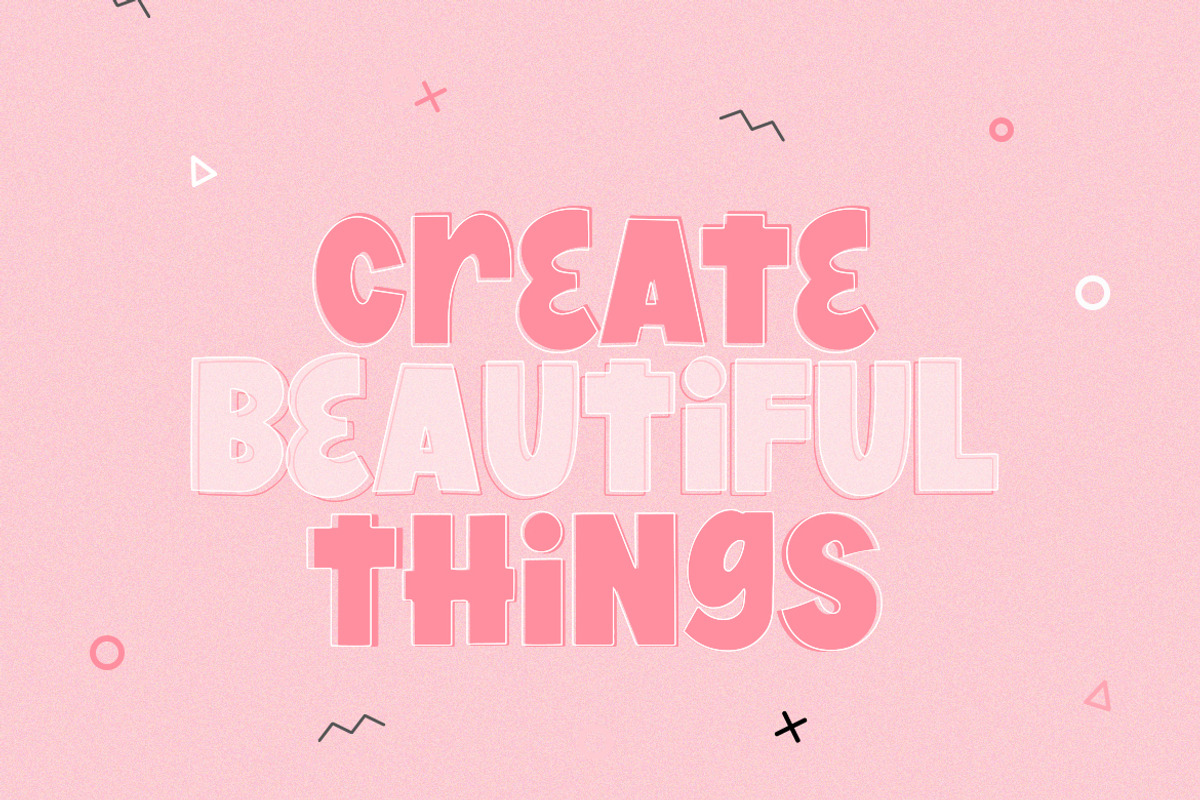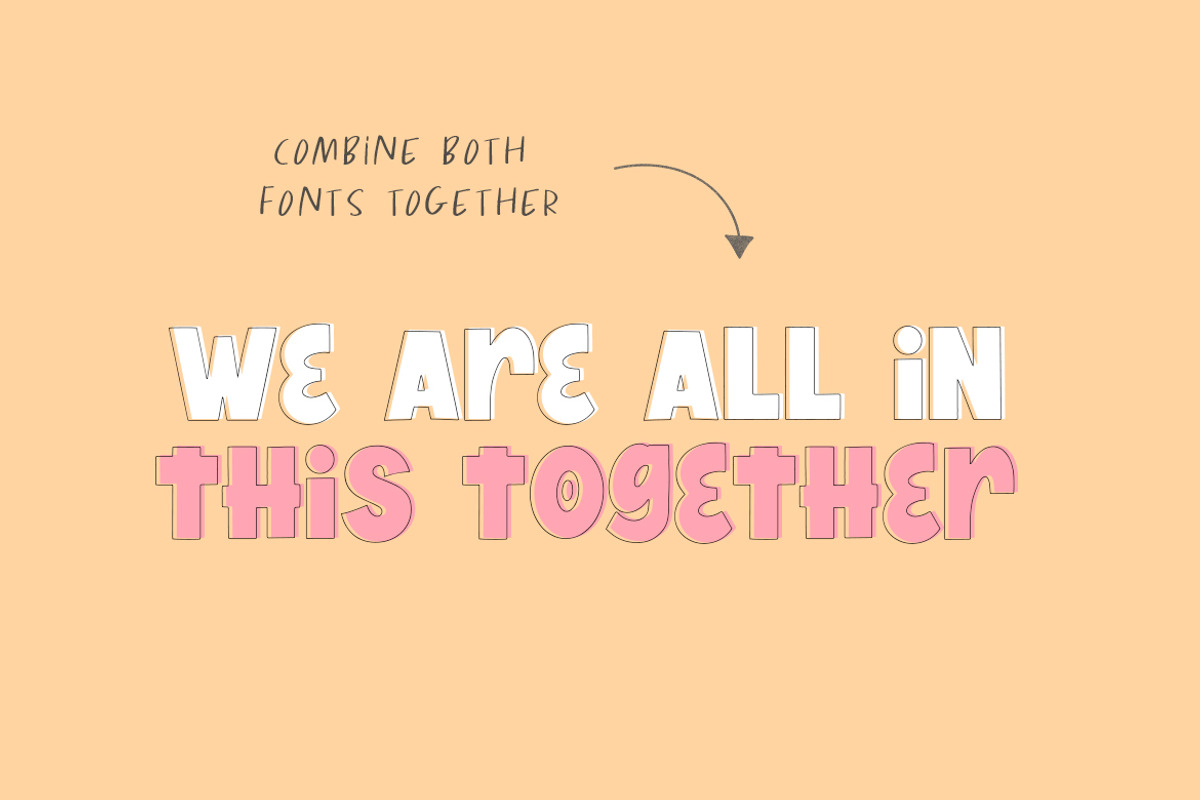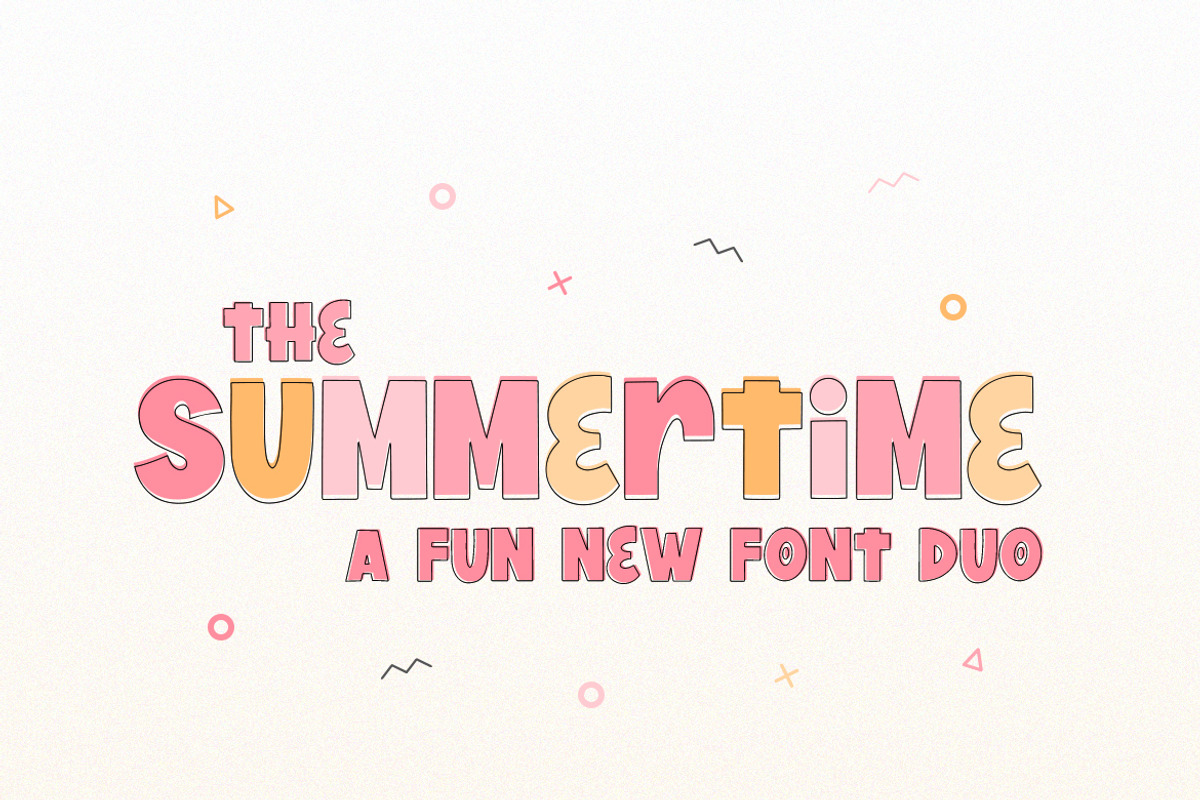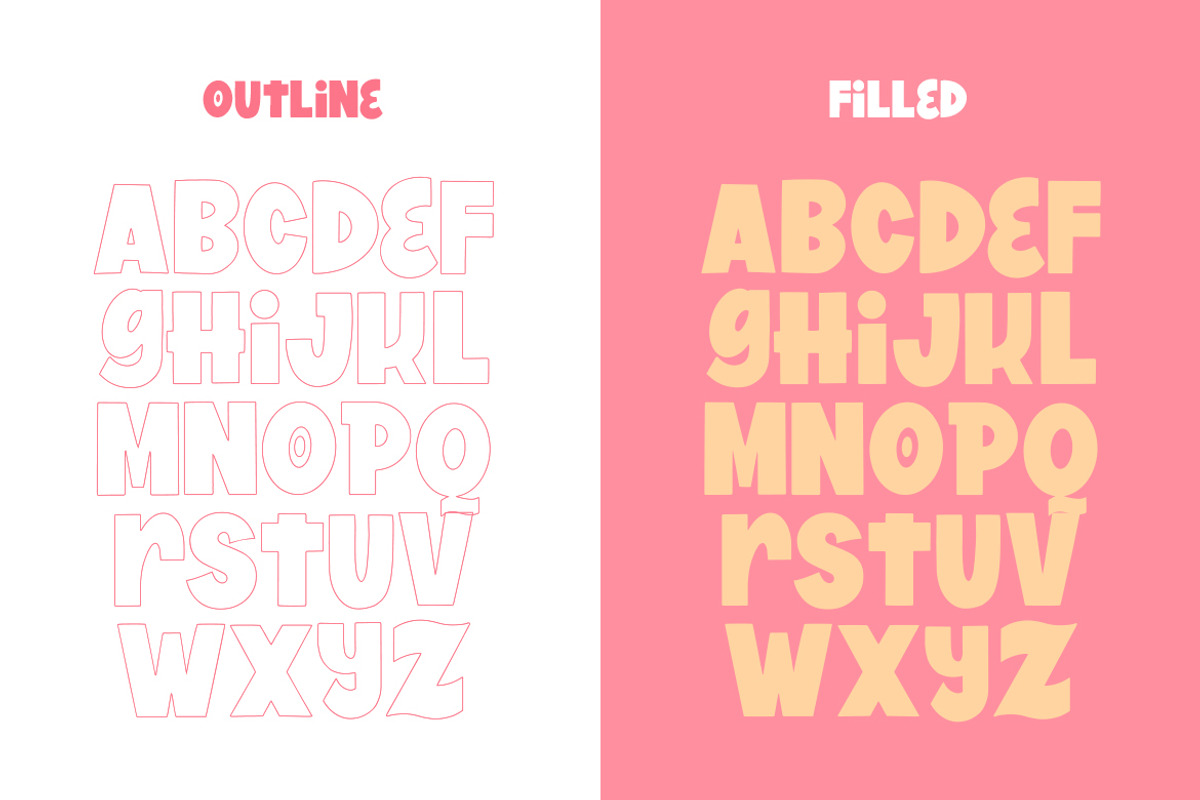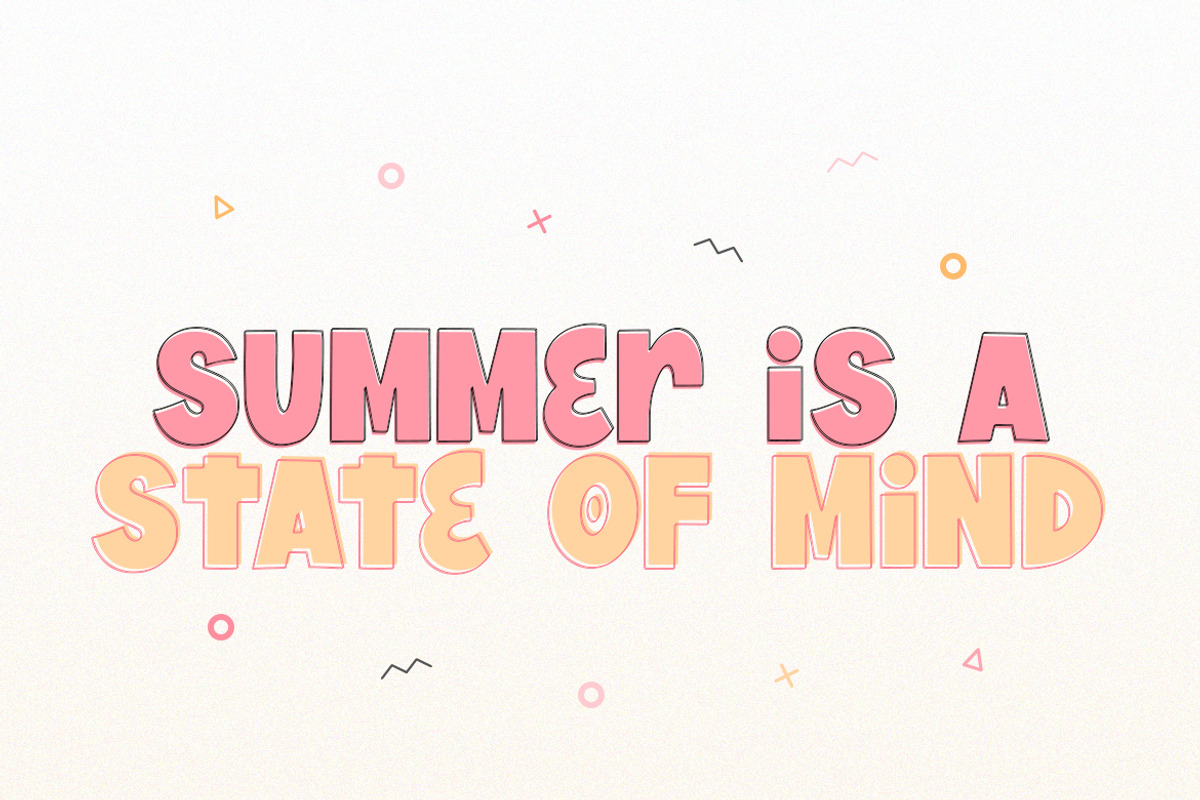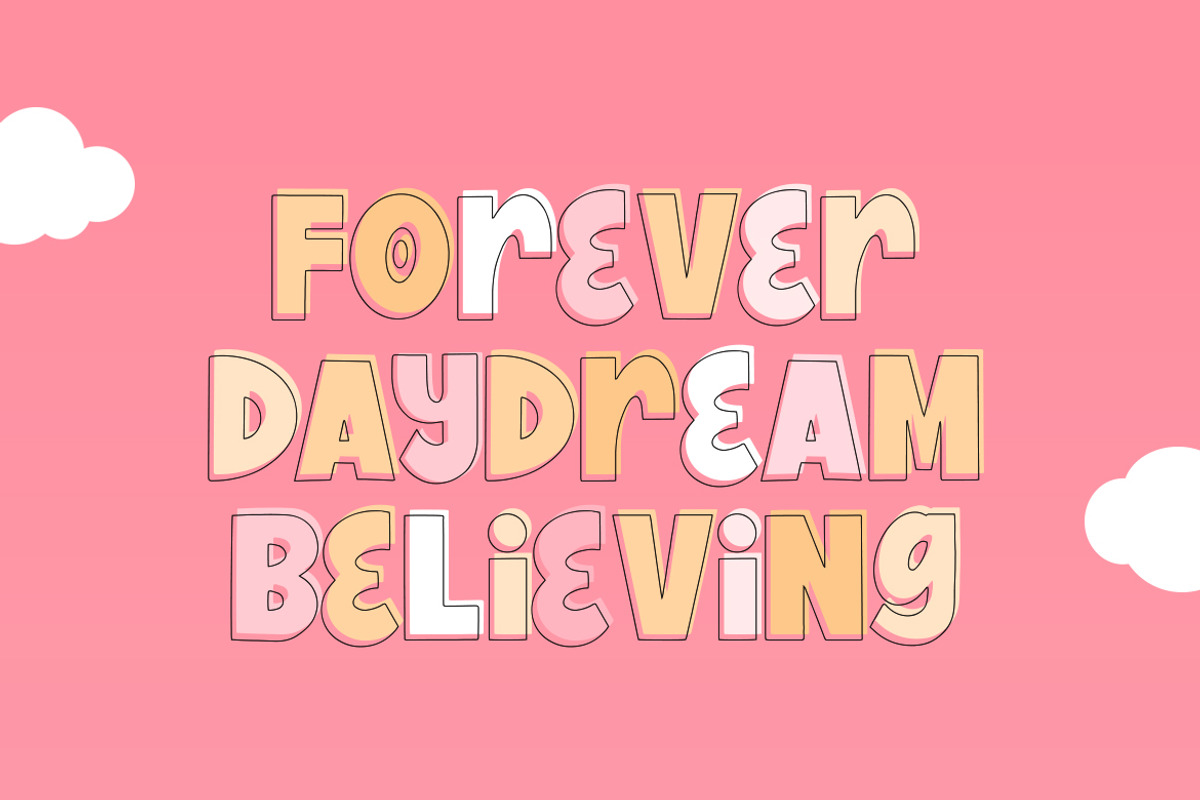
Summertime Font Duo
Why Summertime Font Duo is worth a look
Summertime Font Duo by Salt & Pepper Designs fits naturally into Branding, posters, packaging, typography.